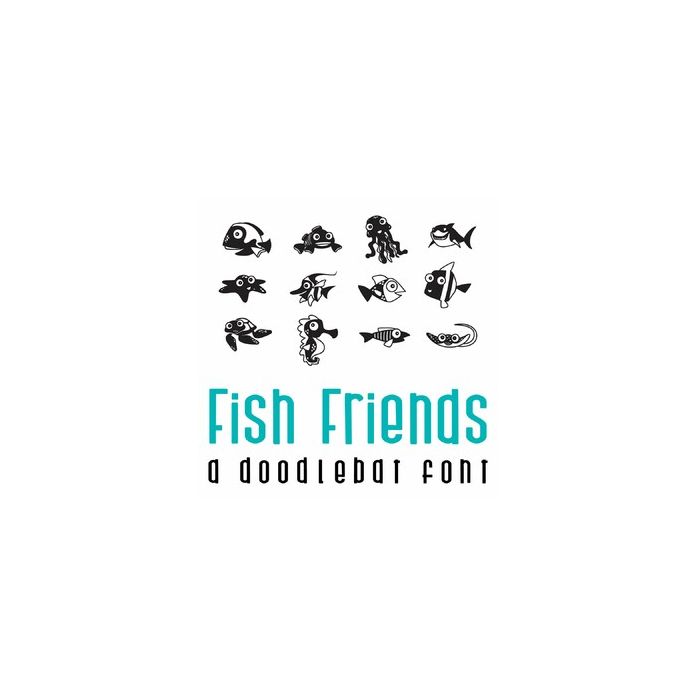
This adorable doodlebat font features 26 adorable underwater fish and a few are even ready to party! Perfect for cards, crafts, gifts, decor, scrap book pages, planner stickers and more!